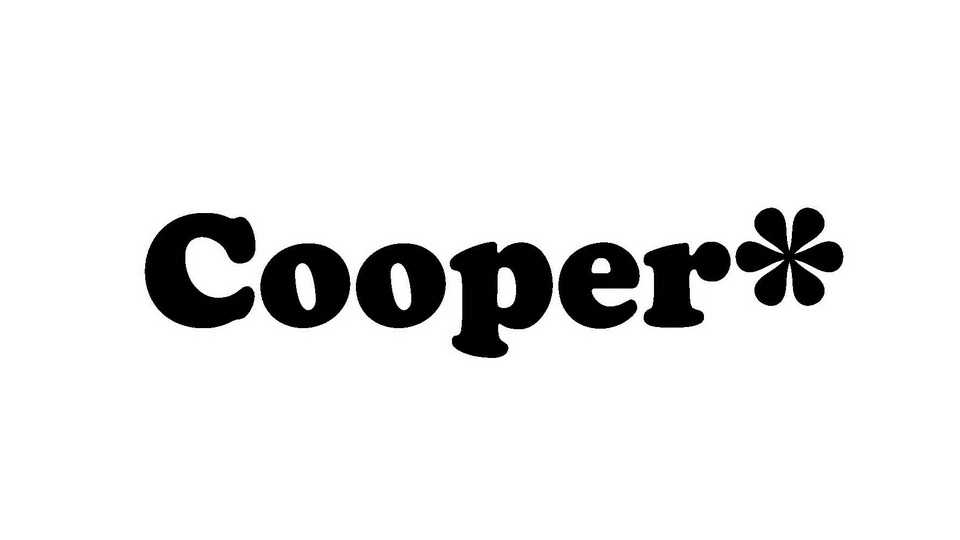
Download Cooper* font, a meticulously researched, historically accurate revival of the Cooper series designed by Oswald Cooper and released by Barnhart Brothers & Spindler in the 1920s.